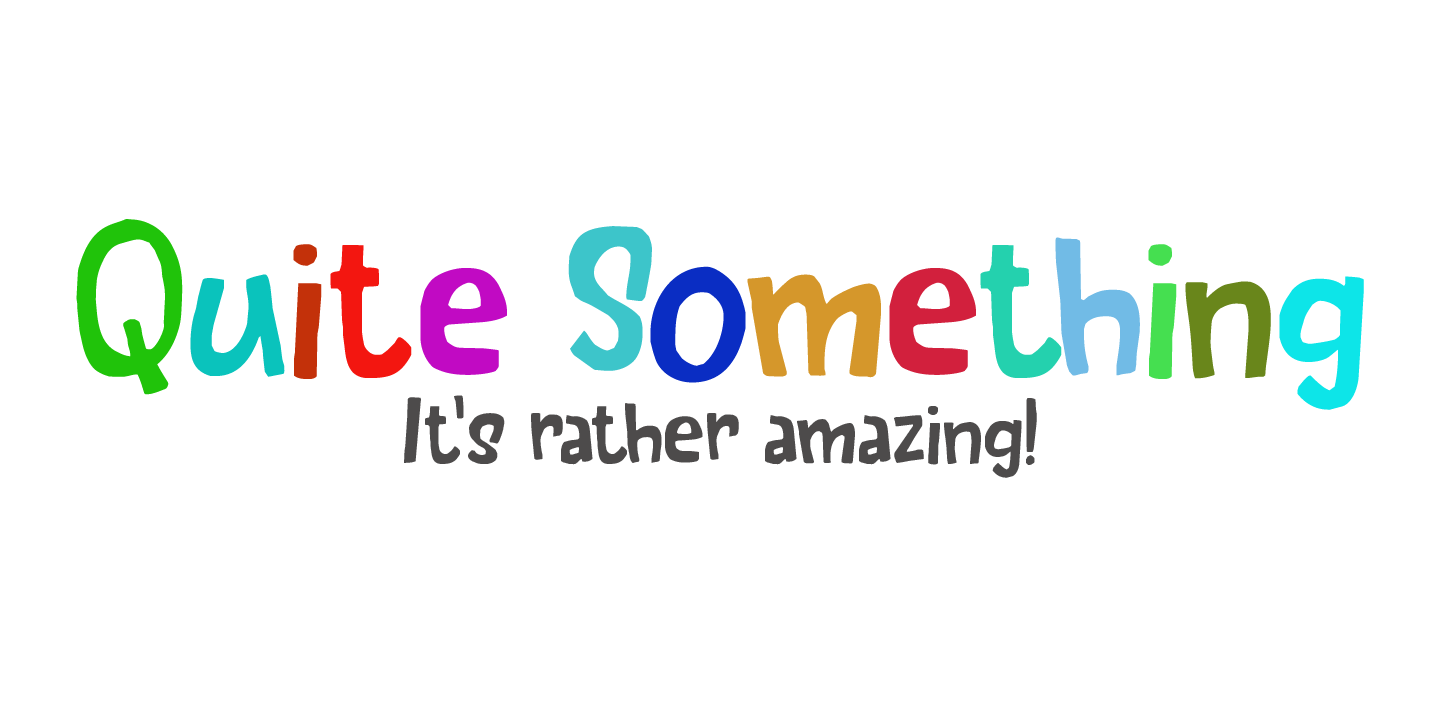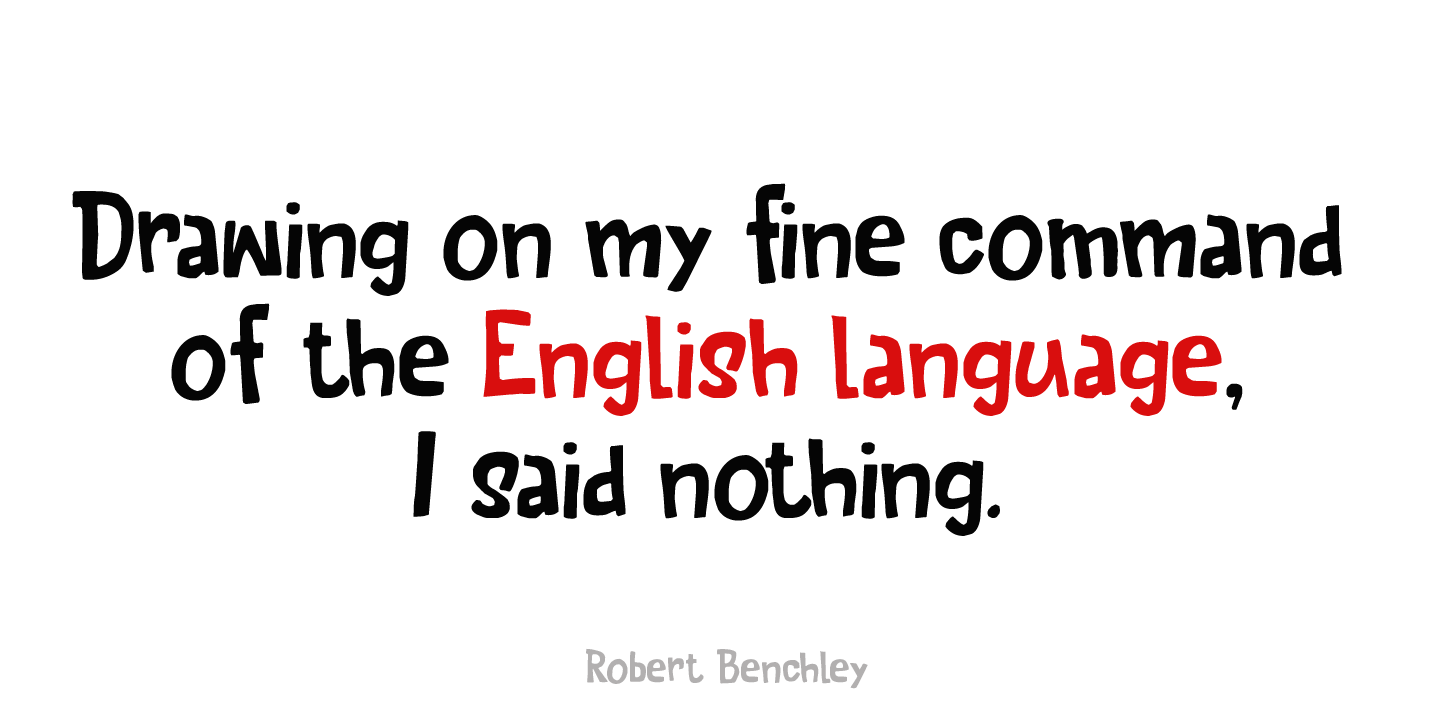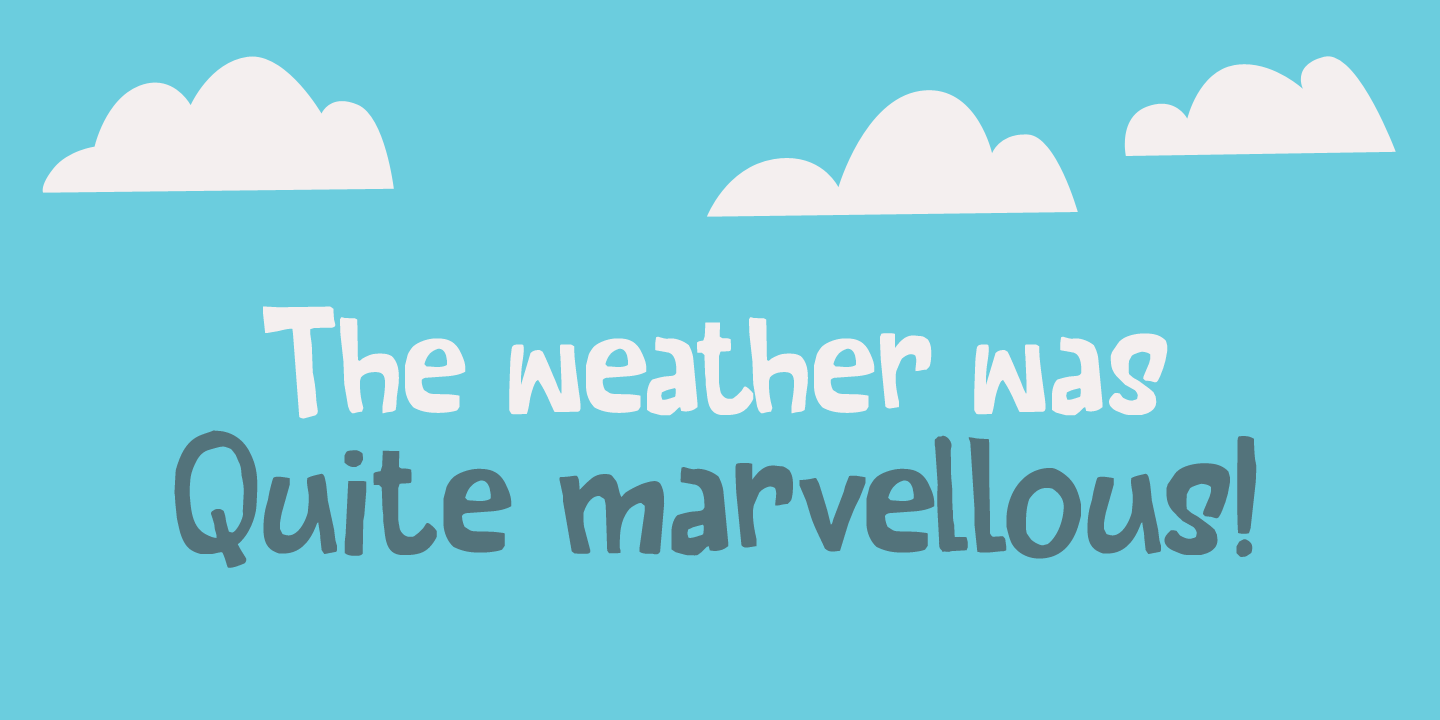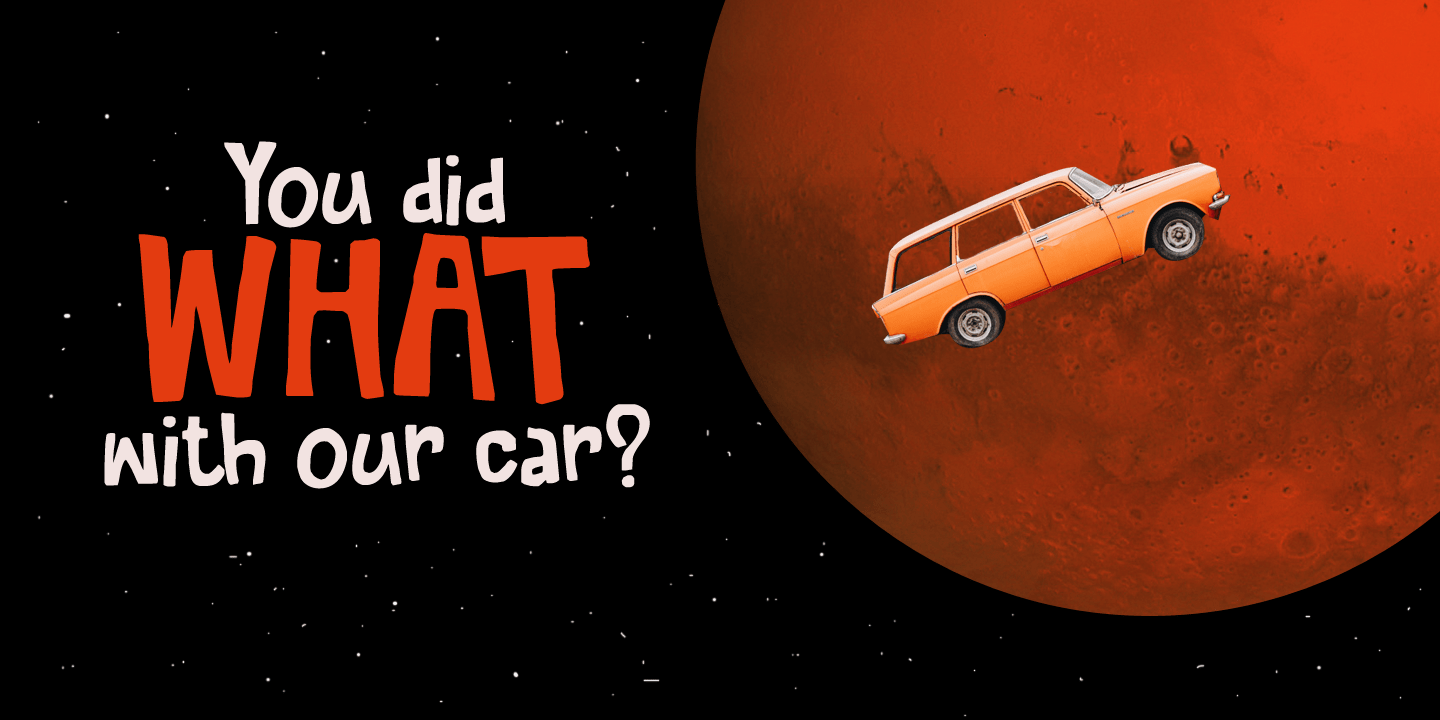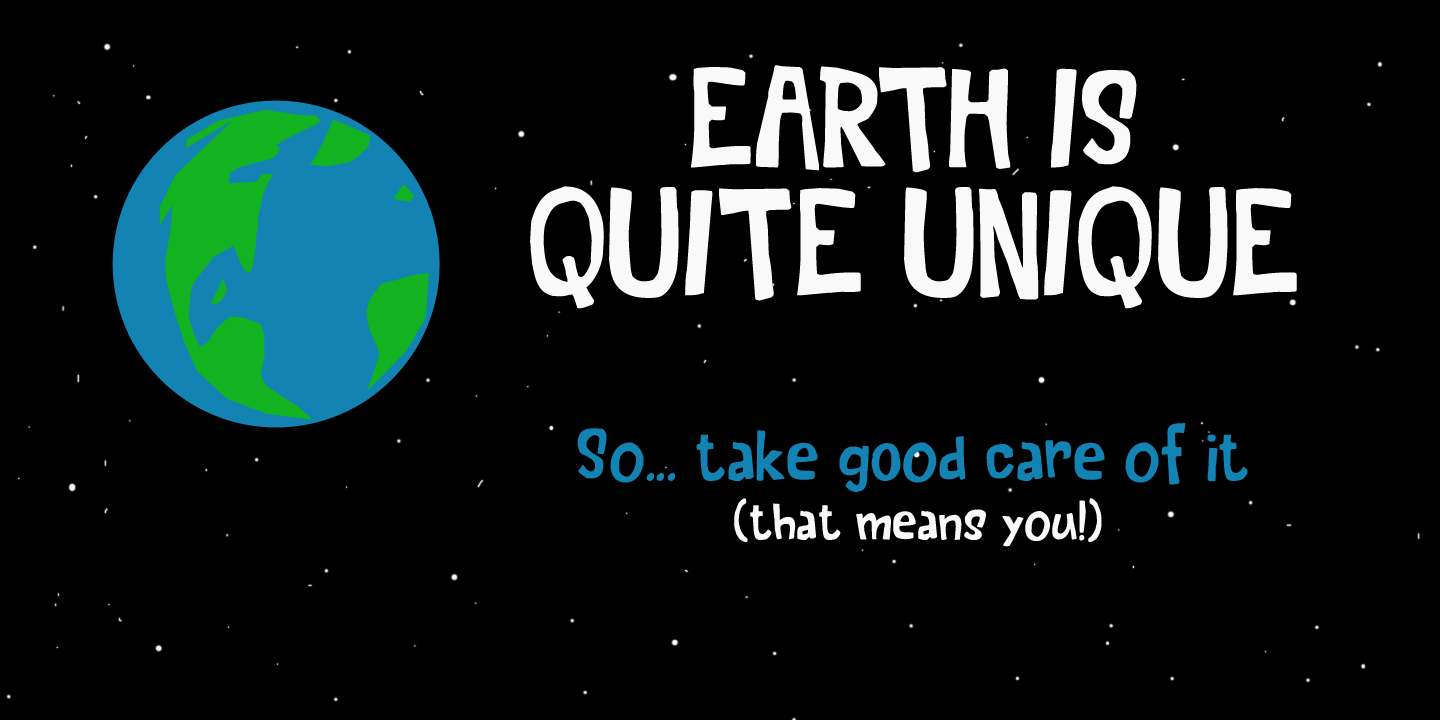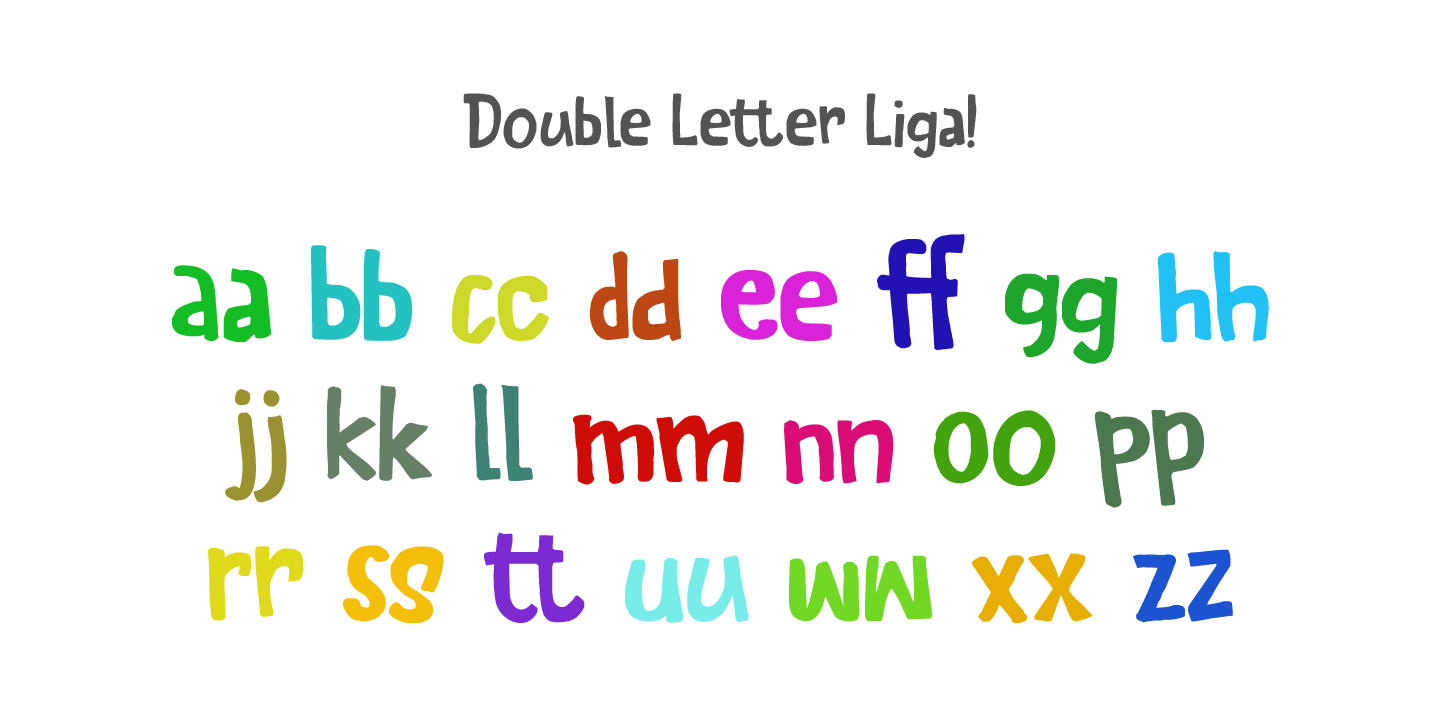
Quite Something
Font Family by Hanoded
I have always liked the word ?quite? - you can stick it in a sentence and all of a sudden that sentence looks quite sophisticated! Quite Something may not be all that sophisticated; in fact, it is a rather messy font. But that's where the fun begins! Use it for your children's book covers, toy packaging and posters. I am sure people will say that your designs are Quite Something!